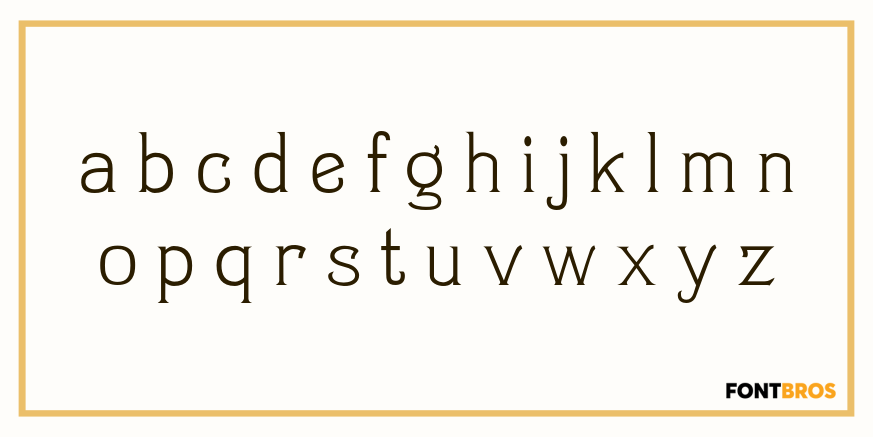
Mural
Font Family by Solotype
Another caps-only font for which we have designed a lowercase. It was originally brought out in smaller sizes for card work, but proved to be so popular that sizes up to 48 point were soon added.